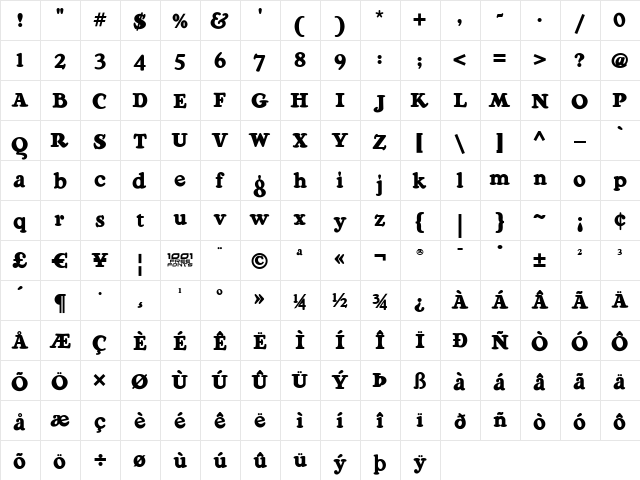
Ragg Mopp NF Regular
Design Context for Ragg Mopp NF Typeface
Ragg Mopp NF takes a measured approach to typography — its balanced proportions and neutral character make it a reliable workhorse for both digital and print work.